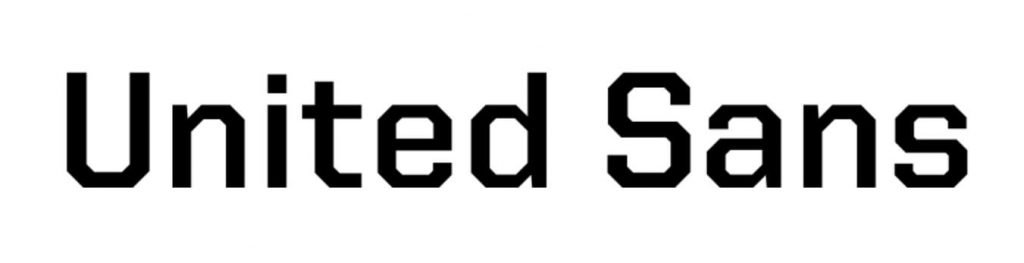
We are excited to present to you the incredible United Sans Reg Bold Font created by Tal Leming. This font was launched in 2006 by the renowned font foundry House Industries.
There are amny superb glyphs and characters are available in this font pack. This typeface with the style of freeland font can be used in the making of differnet websites layouts and thumbnails.
The texture of htis typefaec make this a good choice for design that are printed in different products. This condensed typeface contains different weights that are regular, thin, italic, thin, and heavy.
United Sans Reg Bold is one of the best sans serif font which was designed by Tal Leming for the House Industries in the year 2006.